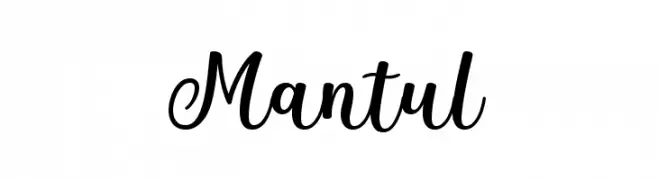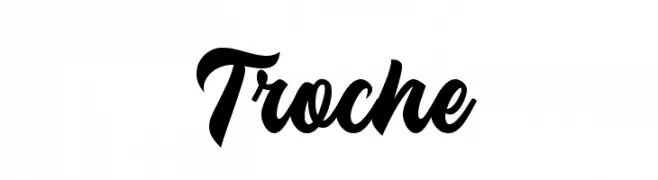
( 7NTypes - Situjuh Nazara - 7ntypes.com )
A stylish and flowing script font with elegant curves and smooth connections.
( 7NTypes - Situjuh Nazara - 7ntypes.com )
A playful and flowing script font with elegant curves and smooth connections.
( 7NTypes - Situjuh Nazara - 7ntypes.com )
A playful and elegant script font with fluid, connected letterforms.
( 7NTypes - Situjuh Nazara - 7ntypes.com )
A flowing, cursive font with elegant, connected strokes and balanced proportions.
( 7NTypes - Situjuh Nazara - 7ntypes.com )
A bold, flowing script font with elegant curves and interconnected letters.
( 7NTypes - Situjuh Nazara - 7ntypes.com )
A graceful script font with flowing, connected strokes and elegant curves.
( 7NTypes - Situjuh Nazara - 7ntypes.com )
A bold, flowing script font with elegant, interconnected characters.
( 7NTypes - Situjuh Nazara - 7ntypes.com )
A bold, flowing script font with elegant, connected letters.
( 7NTypes - Situjuh Nazara - 7ntypes.com )
A flowing, elegant cursive font with interconnected letters and graceful style.
( 7NTypes - Situjuh Nazara - 7ntypes.com )
A classic and elegant script font with flowing, connected letterforms.